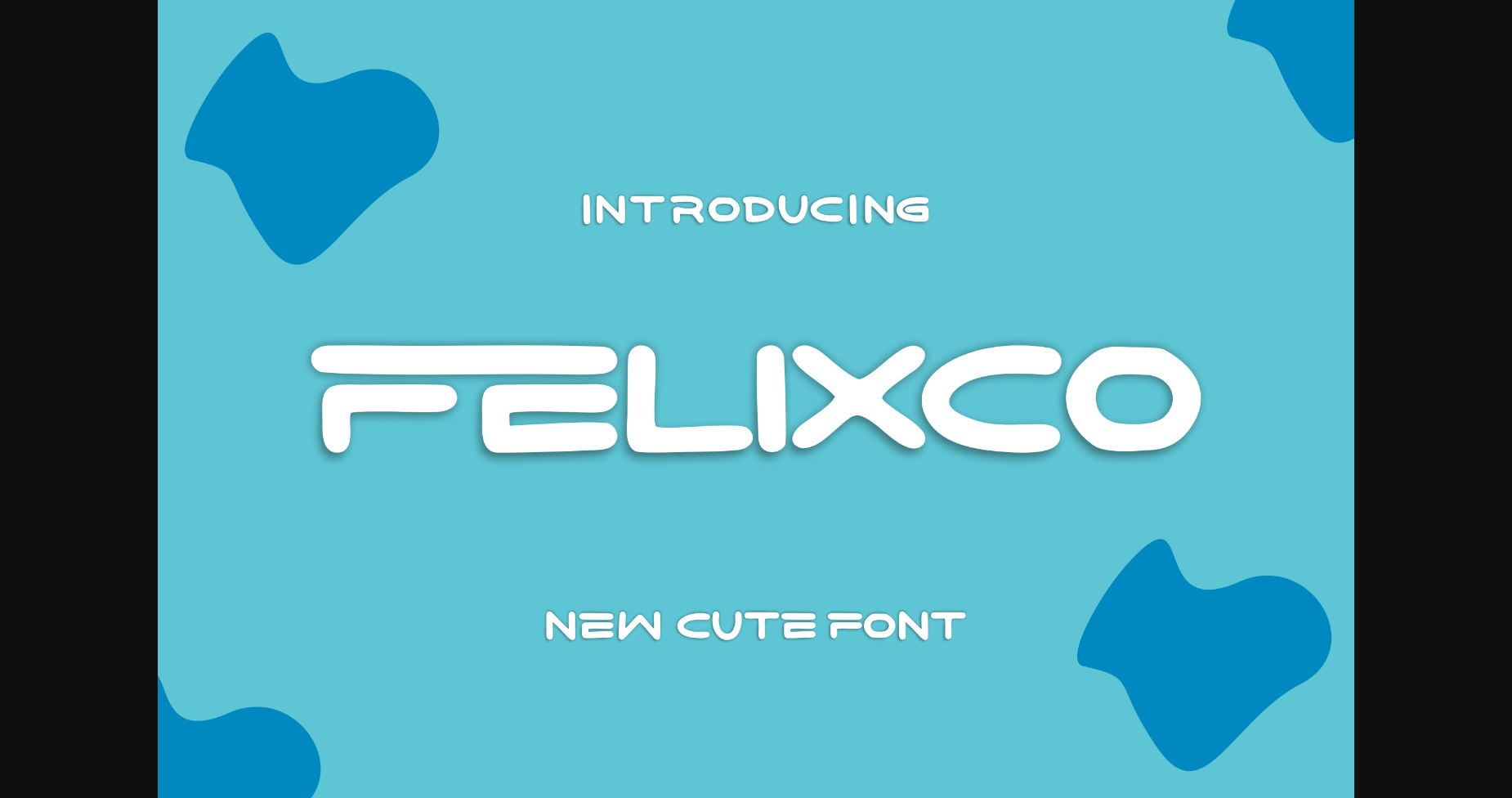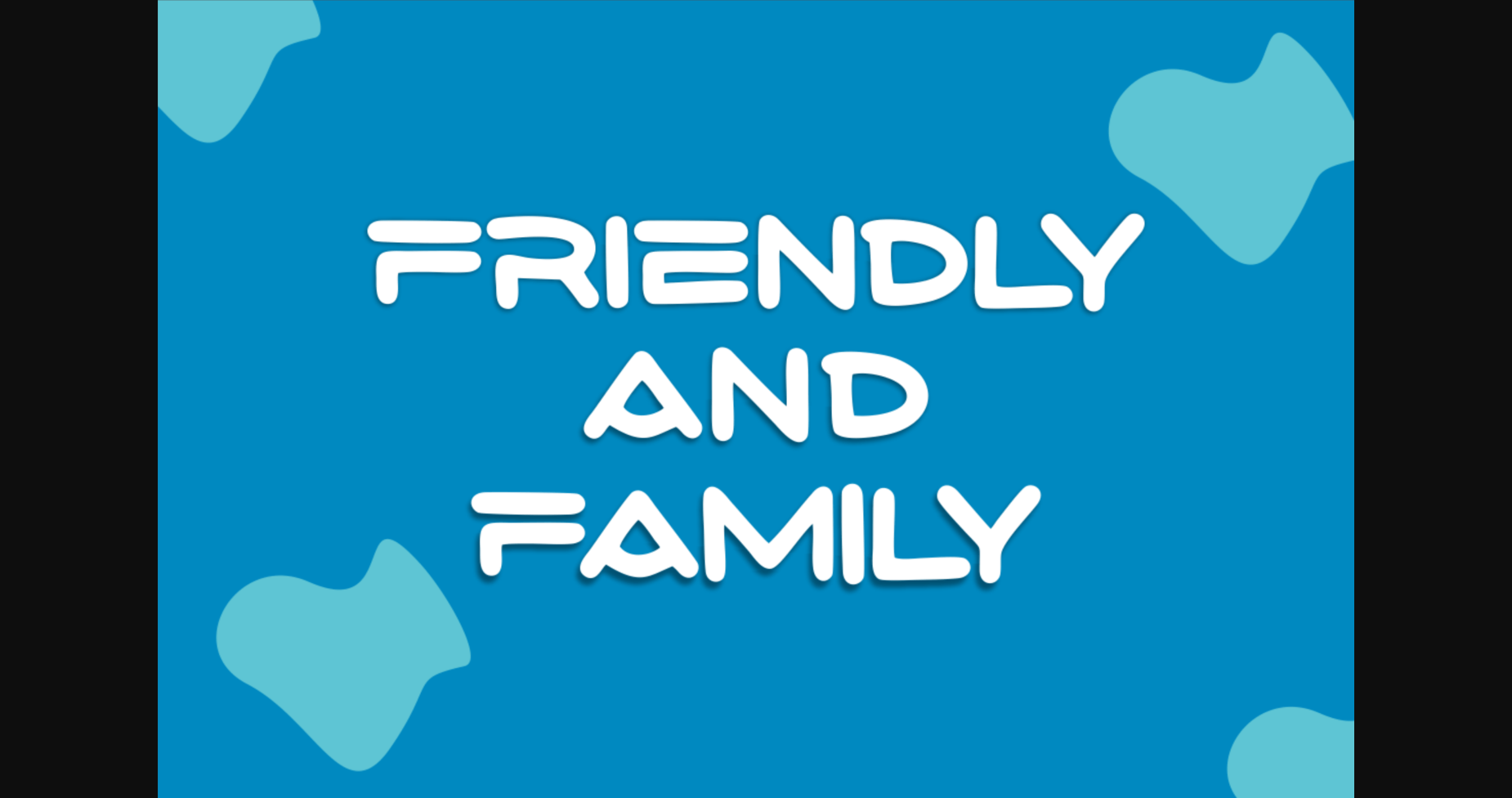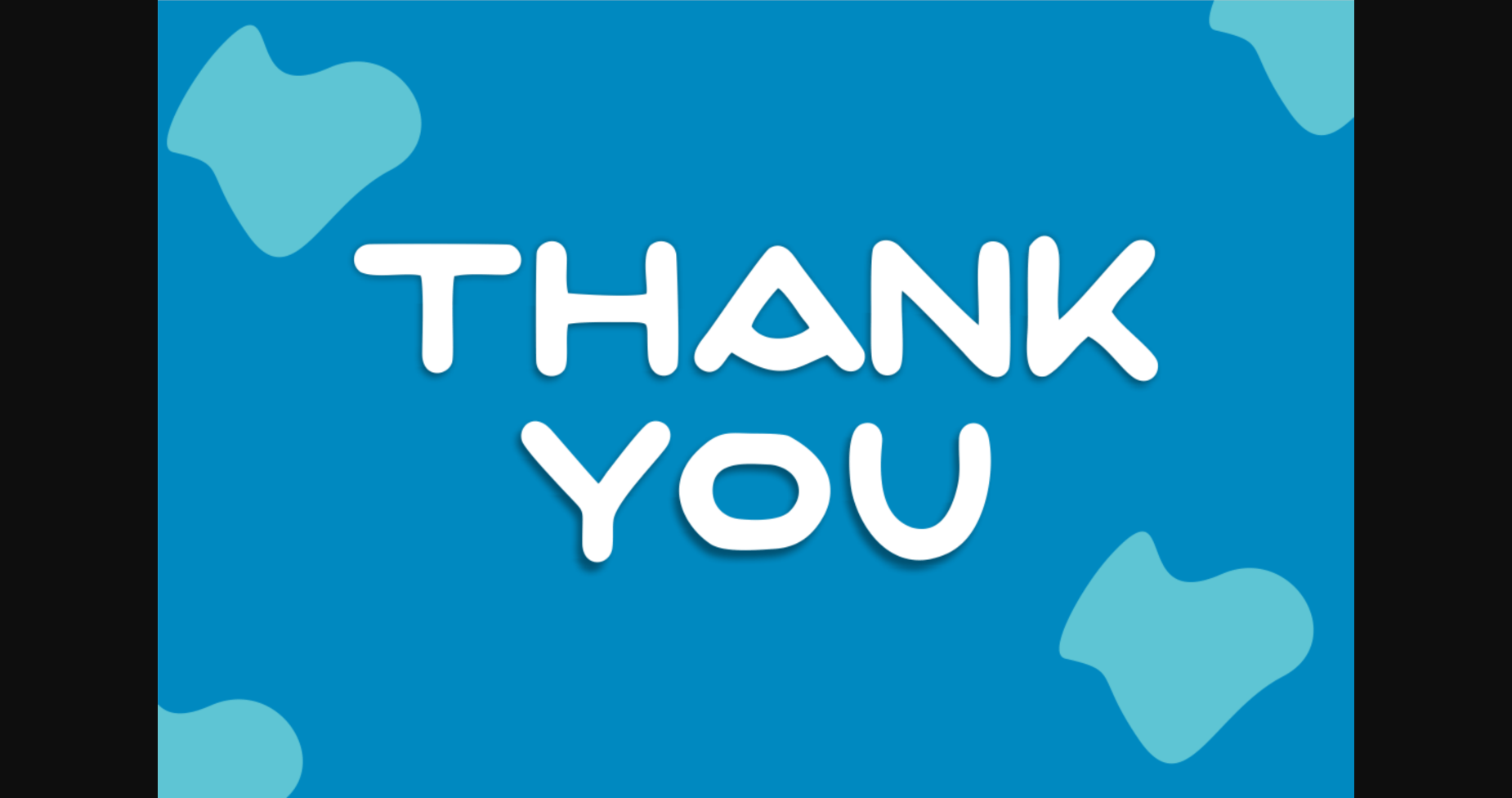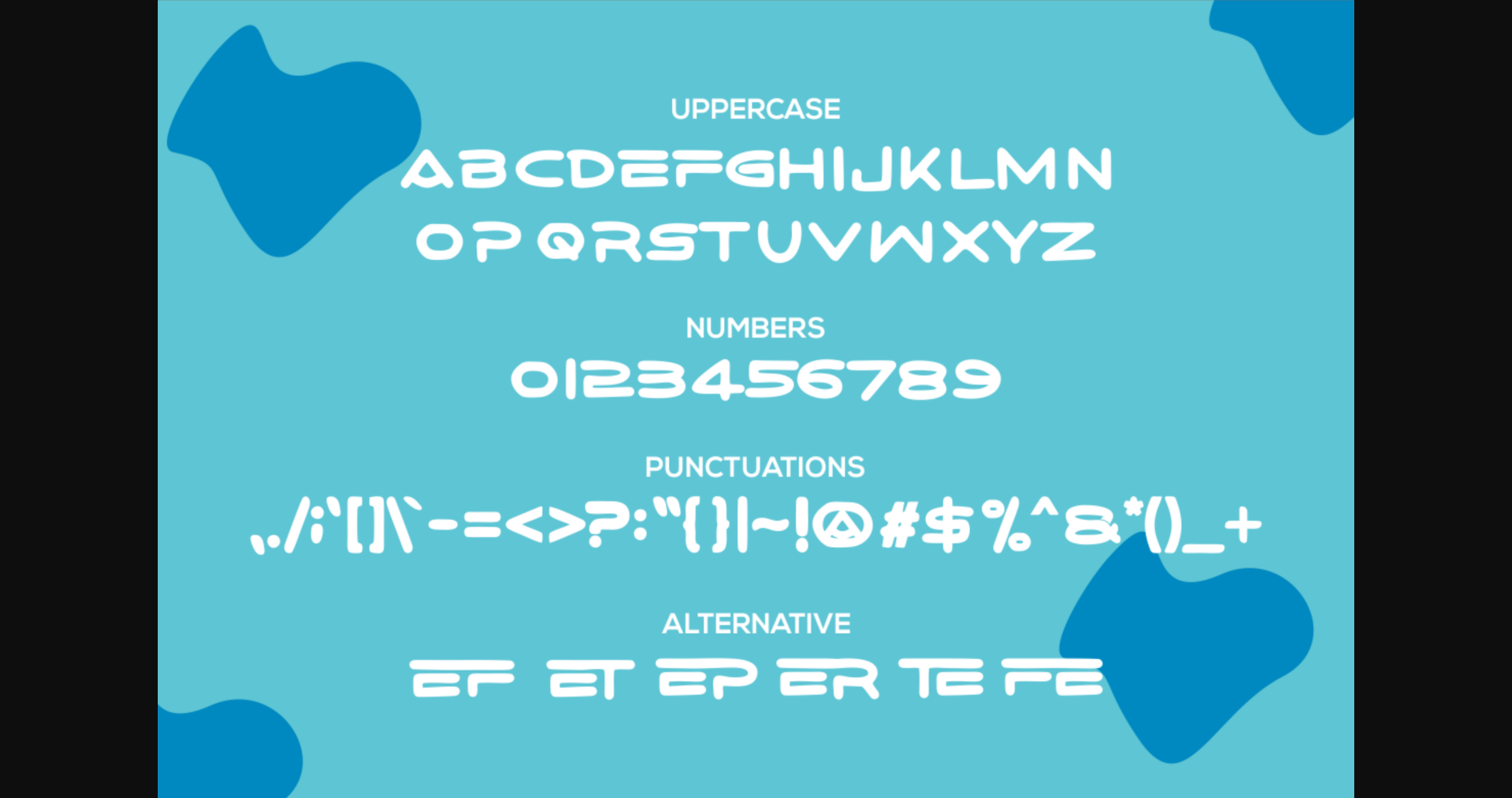
HomeSans Serif FontsFelixco Font Sans Serif Fonts Felixco Font FacebookXPinterestWhatsApp 1 of 6 ... Felixco Font Poster 2... Felixco Font Poster 3... Felixco Font Poster 4... Felixco Font Poster 5... Felixco Font Poster 6... About Felixco Font– Modern Font is a bold and authentic display font. The font is suitable for any branding project like logo, t-shirt printing, sport, and many more. Outstanding in a wide range of contexts. DOWNLOAD NOW People also explored Darkest Saturday Duo Font Royality Font Brittany Font Farmhouse Font Bulky Great Britain Font Calliretta Font Cow Moo Font Megapunch Font 483 0 TagsFelixcoFelixco Font Previous articleBlewover FontNext articleWorld of Koka Font LEAVE A REPLY Cancel reply Comment: Please enter your comment! Name:* Please enter your name here Email:* You have entered an incorrect email address! Please enter your email address here Website: Save my name, email, and website in this browser for the next time I comment. Personal Use Free Joystix Monospace Personal Use Free Read more about this font Airmole Personal Use Free Read more about this font The Lima Personal Use Free Read more about this font White Rose Personal Use Free Read more about this font BLOG How to Cut Any Font on Cricut: Convert a Font to SVG (Free) Turn any font into a clean SVG so it cuts crisp on Cricut - a quick 3-step workflow using a free font-to-SVG tool. Exploring Font Trends Modern Sans-Serif Fonts That Brands Love in 2025 Top 10 Handwritten Fonts That Elevate Your Designs